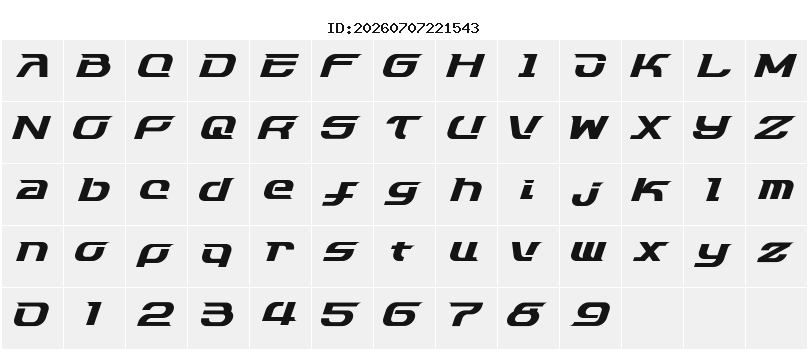
Dash9812 Preview
About Dash9812.ttf
Dash9812.ttf is a modern, elegant sans-serif font designed for ultimate readability and visual harmony. Perfect for branding, headlines, web design, and print materials.